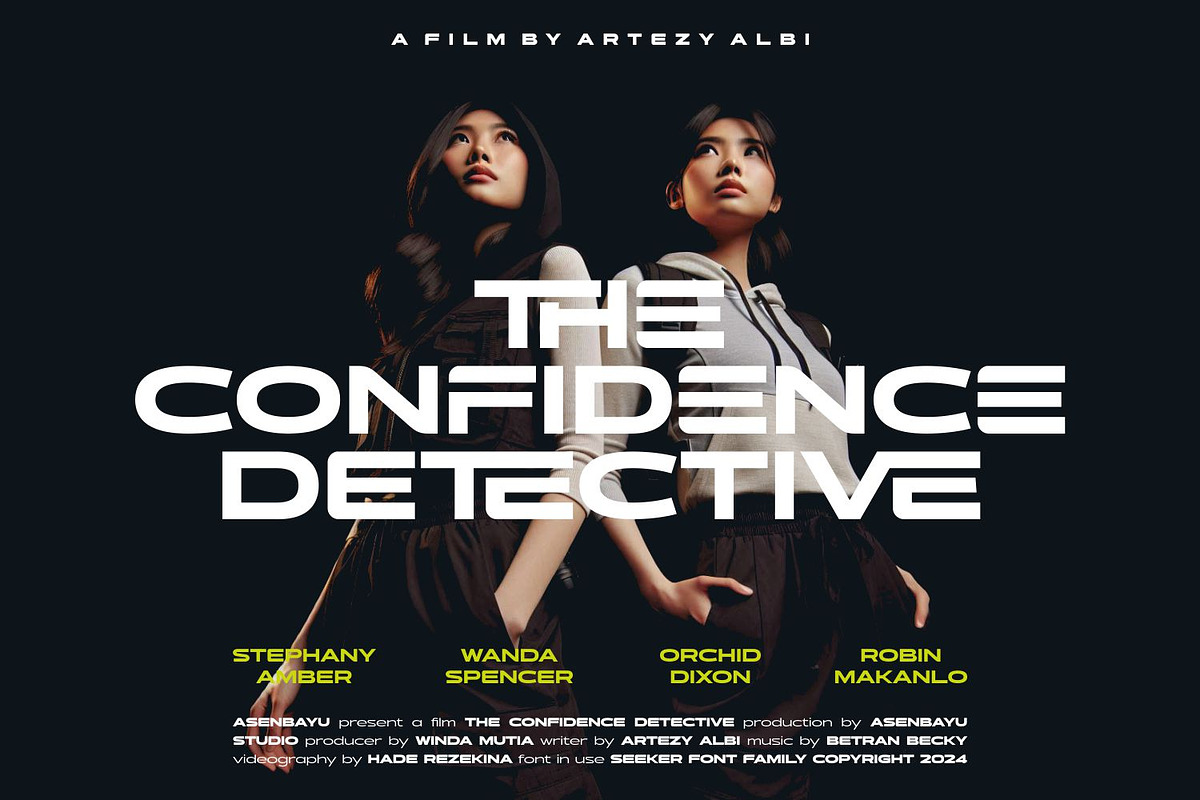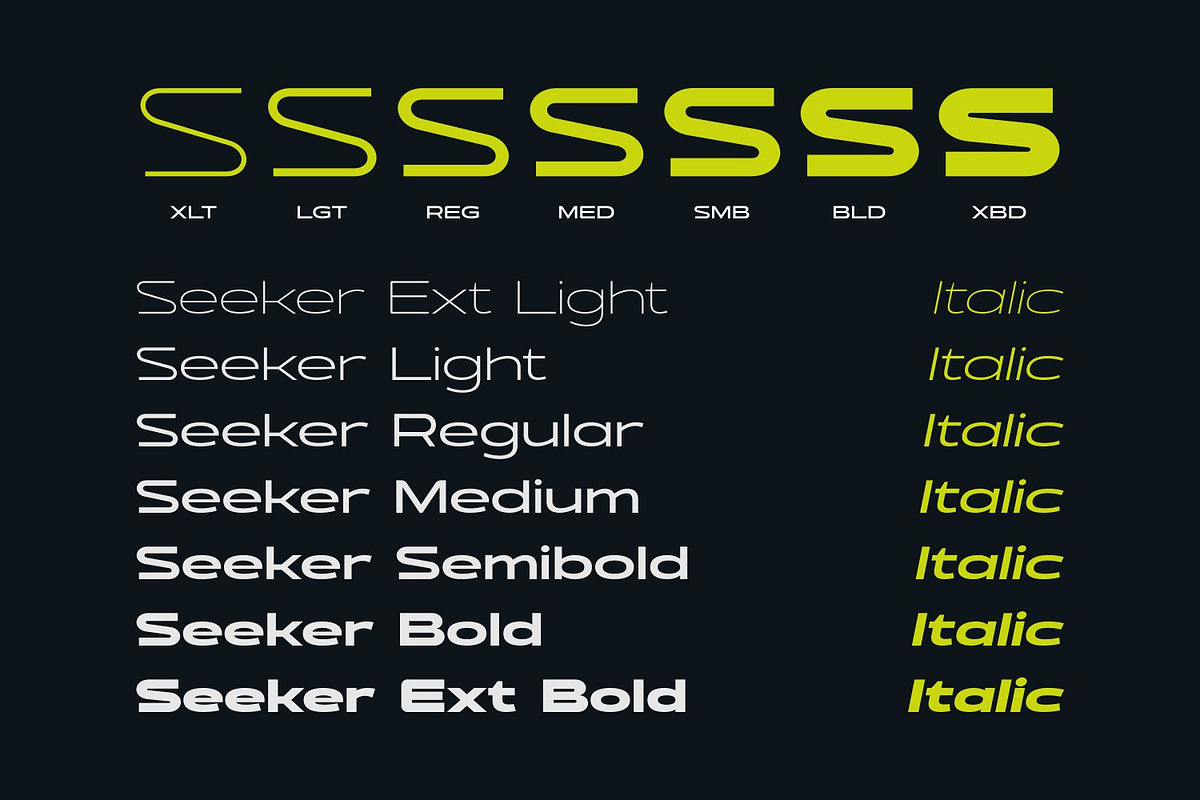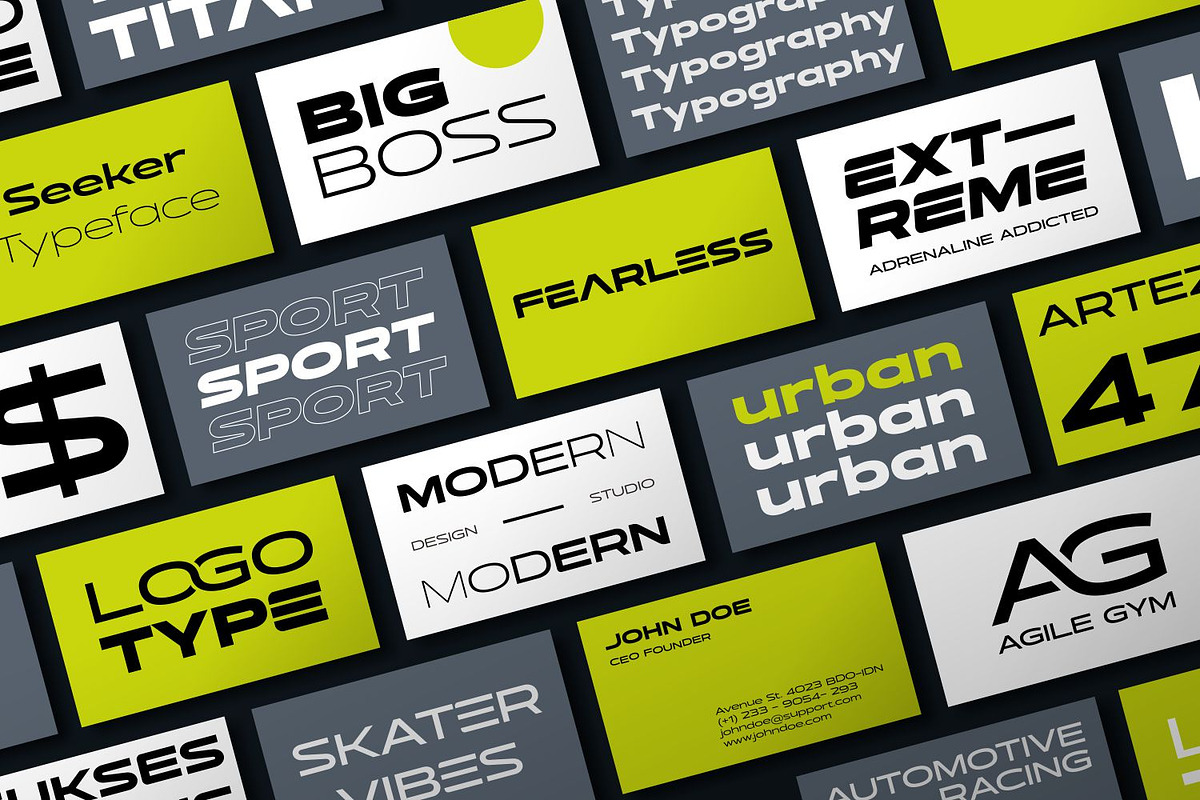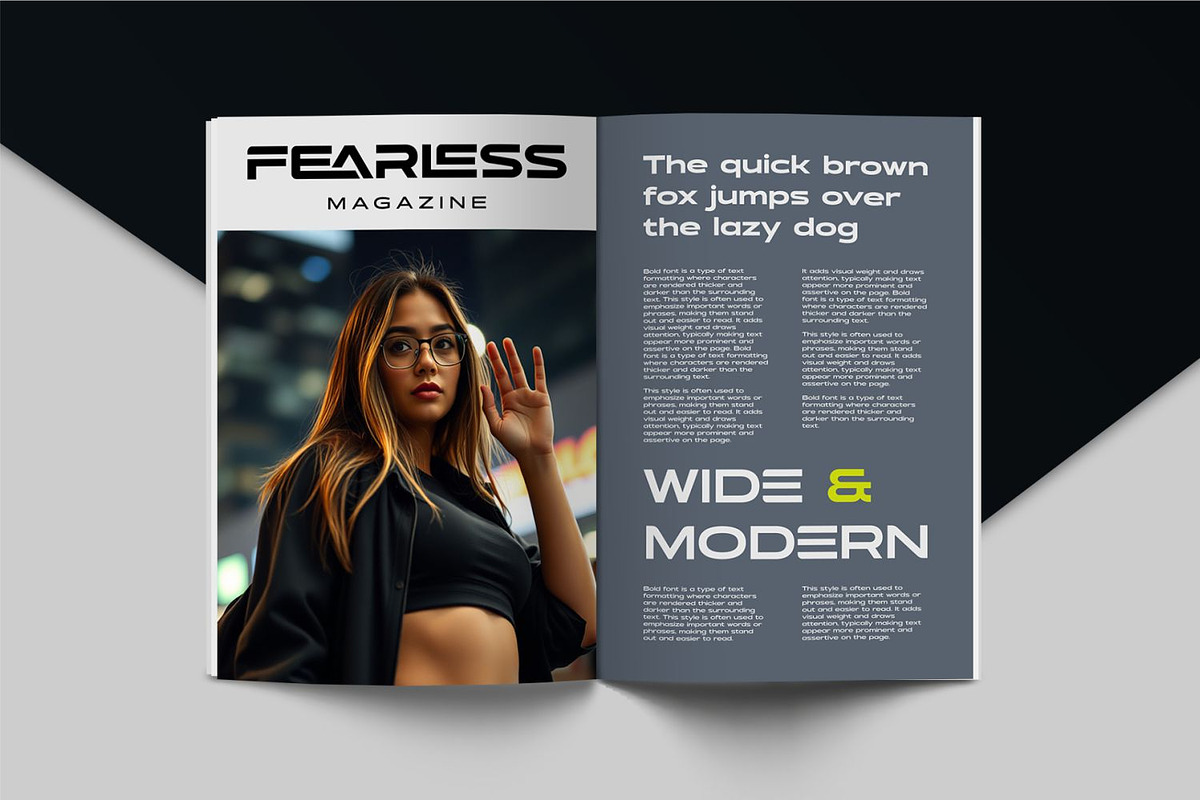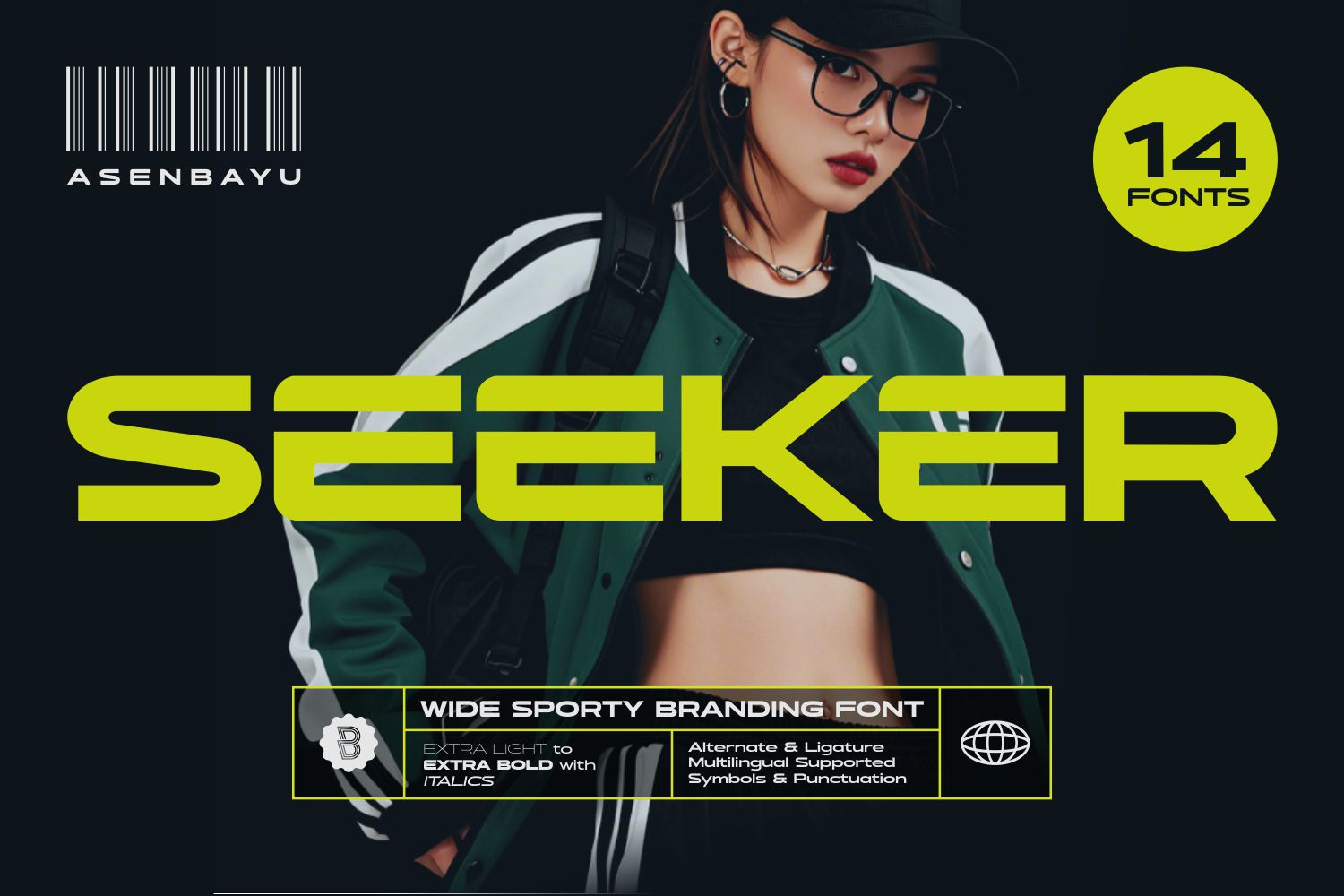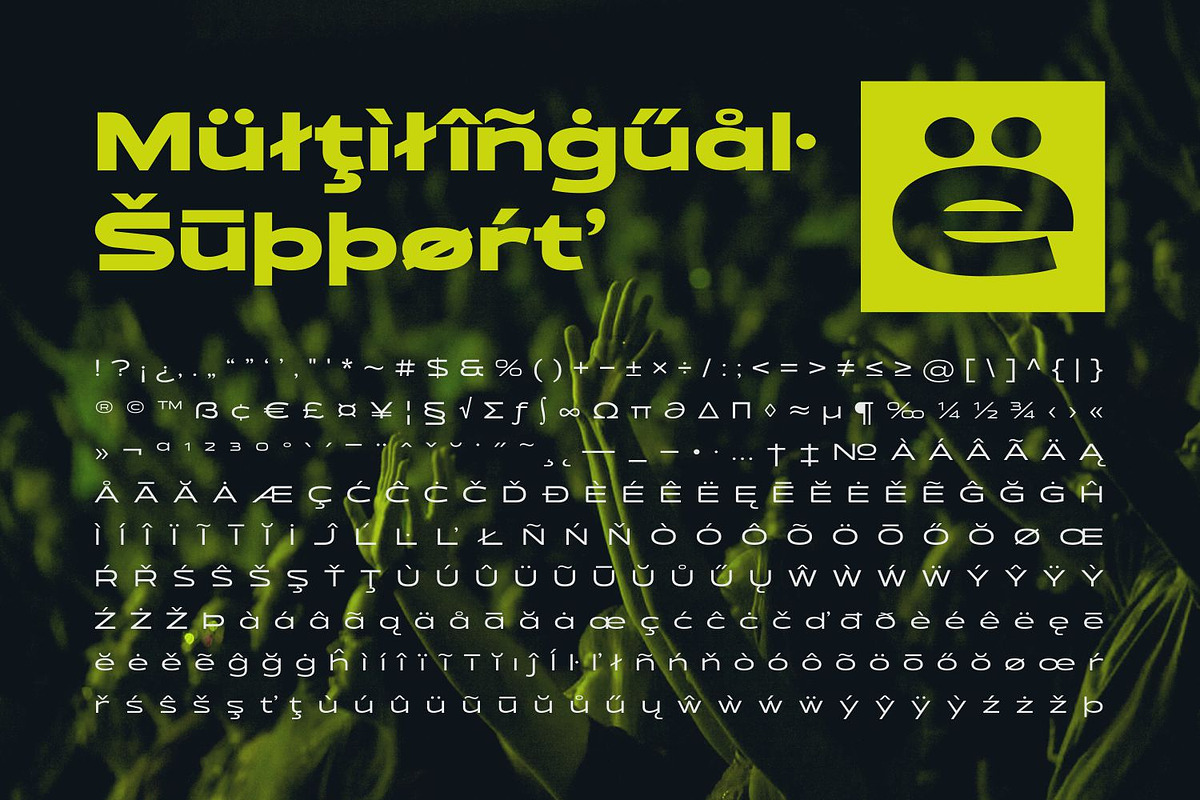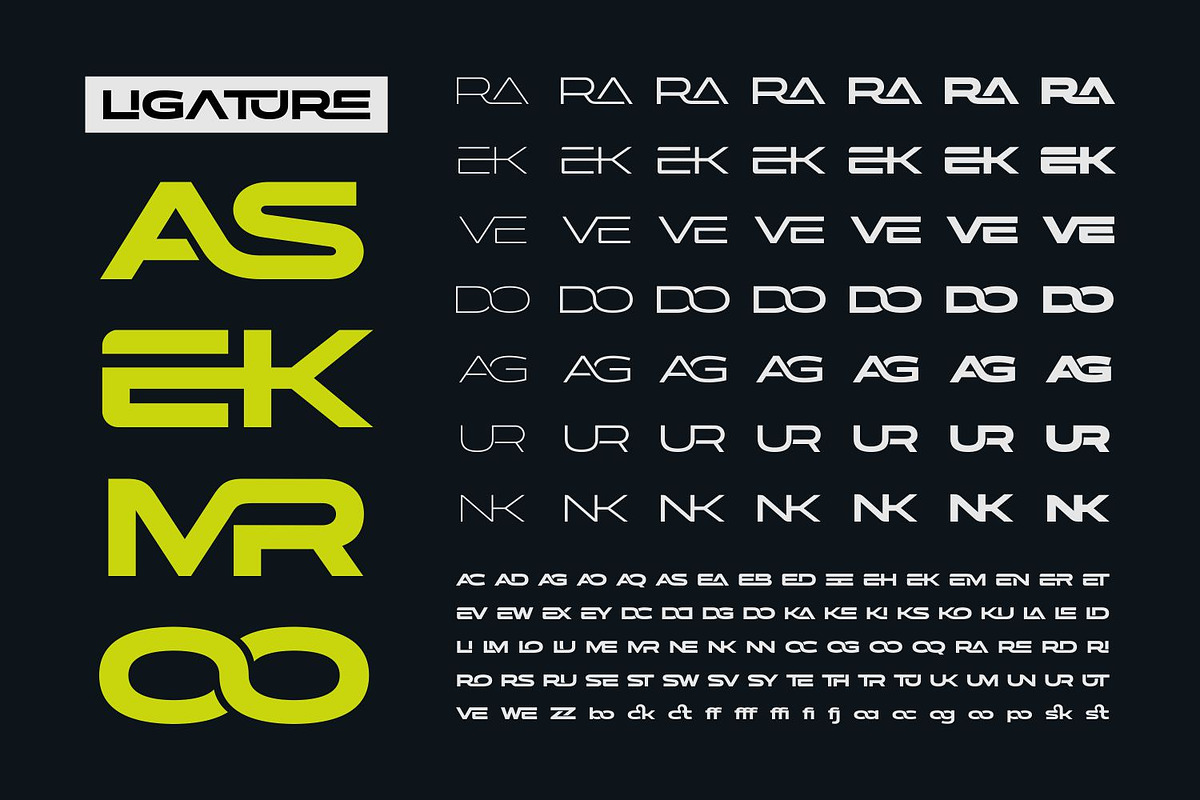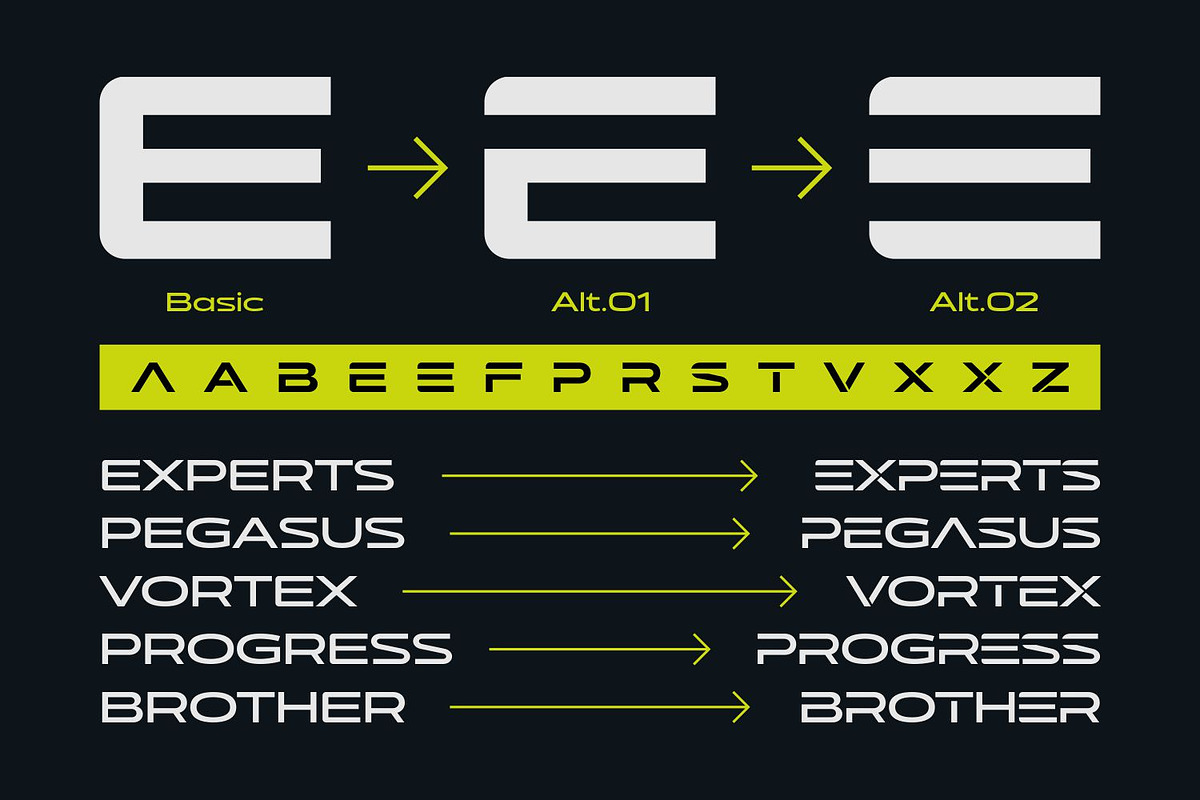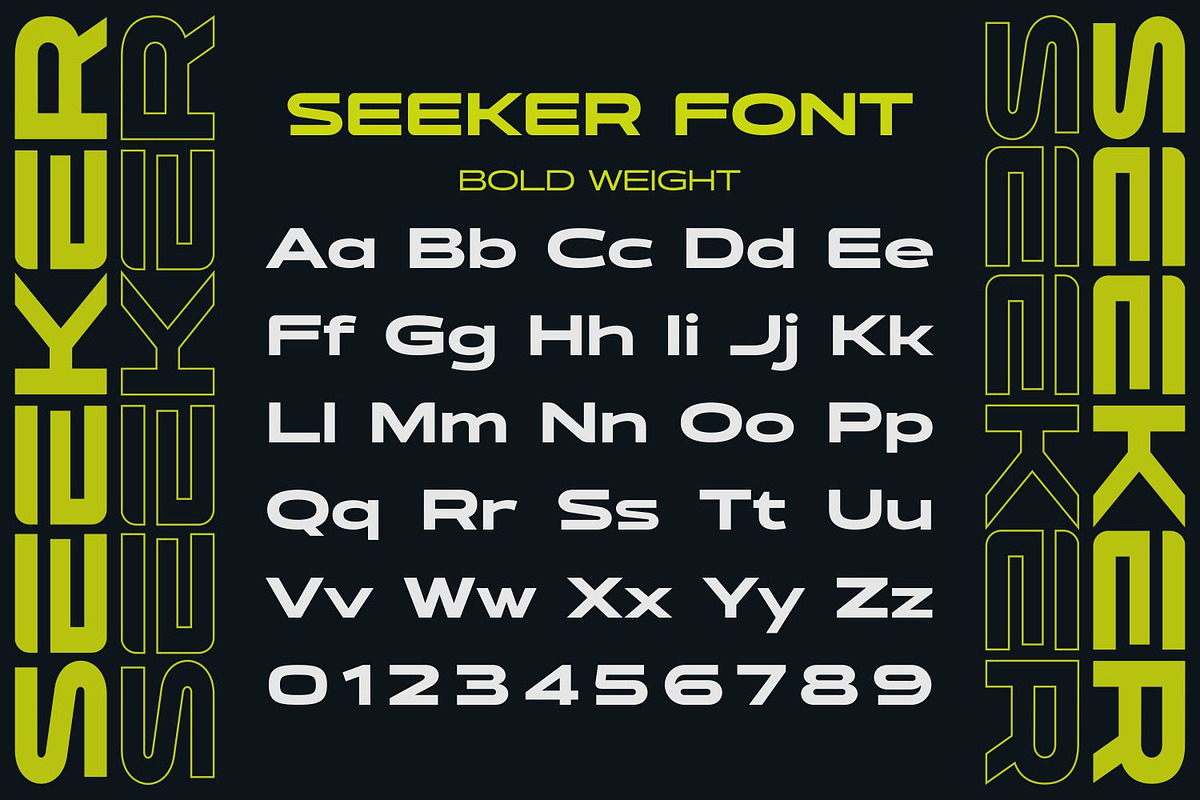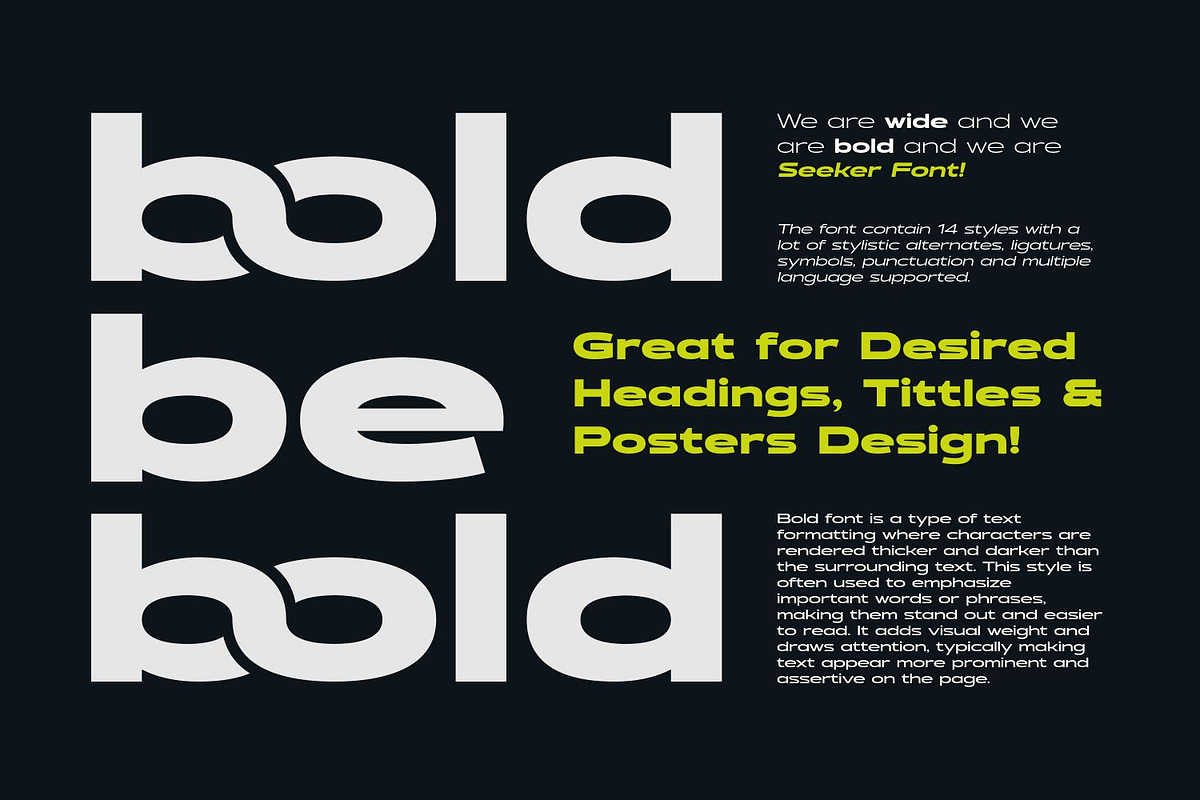
Seeker - Wide Sporty Branding Font
Seeker is a wide modern sporty branding font family, an energetic typeface that captures the essence of athleticism and urban style. This font is designed to convey a sense of movement, strength and contemporary style, making it ideal for sports brands, sportswear and fitness-related products. This font is suitable for trendy packaging label designs, unique desired logos, poster designs, fashion and many more.
Seeker font features: 14 fonts style, standard glyph, stylistic alternates, stylistic ligatures, symbol, punctuation and multiple languages supported.